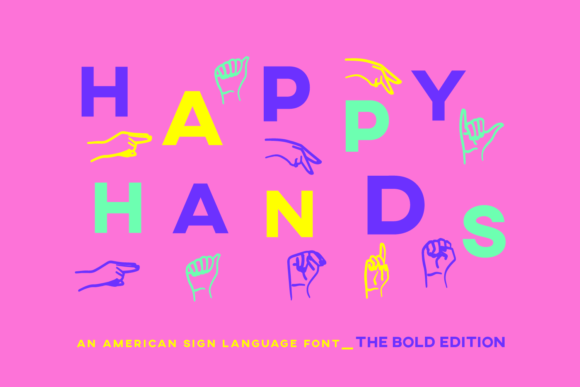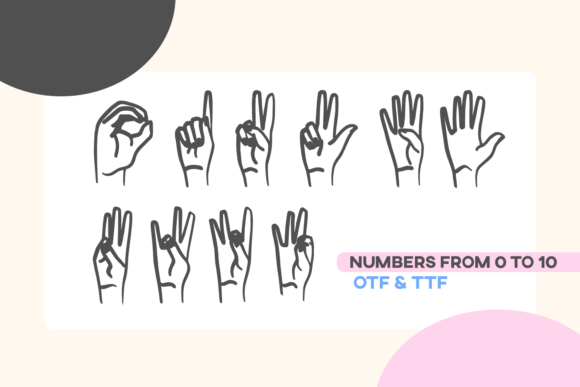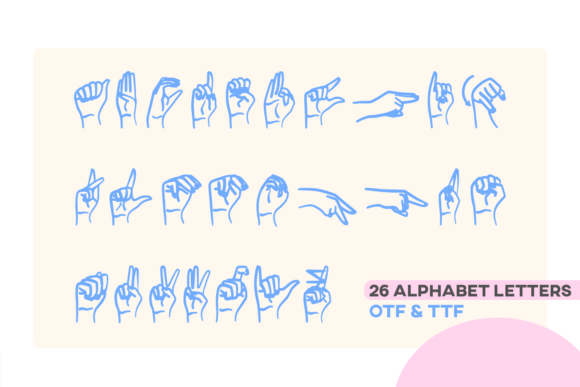
About Happy Hands Font
Absolutely! Happy Hands is an interesting and unique dingbats font that can add a touch of elegance and timelessness to your designs. With its masterful design, it has the potential to elevate each of your creative ideas. Here are some ways you can use the Happy Hands font to create gorgeous and timeless designs:
1. Wedding Invitations: Design beautiful and romantic wedding invitations using the Happy Hands font. Its elegant and unique style will add a touch of sophistication to your invitations. Use the dingbats as decorative elements or borders to enhance the overall design and create a memorable invitation suite.
2. Quotes and Typography Art: Create stunning typography art using the Happy Hands font. Its interesting and unique design will make your quotes and phrases stand out. Combine the dingbats with the letters to add artistic and decorative elements to your typography art pieces.
3. Logo and Branding: Use the Happy Hands font to create logos and branding materials with a timeless and elegant feel. Its masterful design can bring a touch of sophistication to your brand identity. Incorporate the dingbats as part of your logo design or use them as decorative elements in your branding materials.
4. Packaging Design: Enhance your product packaging with the Happy Hands font. Its interesting and unique style will make your packaging stand out on the shelves. Use the dingbats to add decorative elements or borders to your packaging design, giving it a touch of elegance and sophistication.
5. Personal Stationery: Create personalized stationery items using the Happy Hands font. Whether it’s letterheads, notecards, or envelopes, the font’s unique design will add a touch of elegance to your personal correspondence. Use the dingbats as decorative elements or borders to make your stationery even more special.
6. Artistic Prints: Print and frame artistic designs using the Happy Hands font. Its timeless and unique style will make your prints stand out as beautiful and eye-catching art pieces. Incorporate the dingbats as part of your designs to add a touch of artistic flair.
Remember to experiment with different combinations of the Happy Hands font, typography, and colors to create unique and visually captivating designs. Let the font’s interesting and unique design inspire your creativity and take your creative ideas to the highest level!